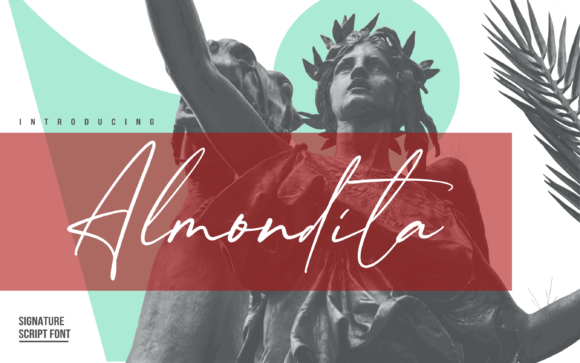
Discover the Allure of Almondita Font
As a designer, there’s nothing quite like the thrill of bringing a new project to life. It’s that moment, when the blank page is filled with color and texture, that we’re reminded of the true power of creativity. And for many of us, that spark is ignited by the perfect font – one that adds a touch of elegance and sophistication to our work.
Enter Almondita Font, a stunning handwritten font that’s equal parts charming and refined. This beautiful typeface is a loving tribute to classic calligraphy, featuring a varying baseline, smooth lines, gorgeous glyphs, and stunning alternates. Whether you’re crafting a wedding invitation, designing a luxury brand, or simply looking to elevate your personal style, Almondita Font is a valuable addition to any designer’s toolkit.
Almondita Font Key Features
- Unique Characteristics: This elegant script font features beautiful, flowing connections between letters, making it ideal for invitations, wedding stationery, and other formal designs.
- Font Style: Almondita Font is available in a single style, but it can be easily customized using OpenType features to create different effects and moods.
Almondita Font Review
I recently had the chance to work with Almondita Font, and I must say it’s a mixed bag. ✨ On the positive side, I love the elegant and feminine touch it brings to any design project. The font is perfect for creating a whimsical and romantic atmosphere, making it ideal for wedding invitations, baby shower decorations, or any other feminine-themed design.
- The font is highly customizable, allowing you to adjust the size, color, and spacing to your heart’s content.
- It’s a great choice for creating a cohesive look across different design elements, such as text, titles, and headings.
- The font is also available in a range of weights and styles, making it versatile for various design applications.
However, there are a few limitations ⚠️ that I’d like to mention:
- The font may not be as effective for formal or corporate designs, as it can come across as too playful or juvenile.
- The font’s elegance can also make it difficult to read in certain situations, such as in small text sizes or when used in a busy design.
- The font’s availability in different languages and character sets may be limited.
Overall, I’d say Almondita Font is a great choice for designers who want to add a touch of elegance and whimsy to their projects. However, it’s essential to use it judiciously and consider the project’s context and target audience.
Almondita Font is a versatile font suitable for various design applications, including:
- Branding and logo designs
- Food and beverage packaging labels
- Editorial and magazine designs
For optimal results, pair Almondita Font with complementary colors and design elements that reflect its elegant and sophisticated style.